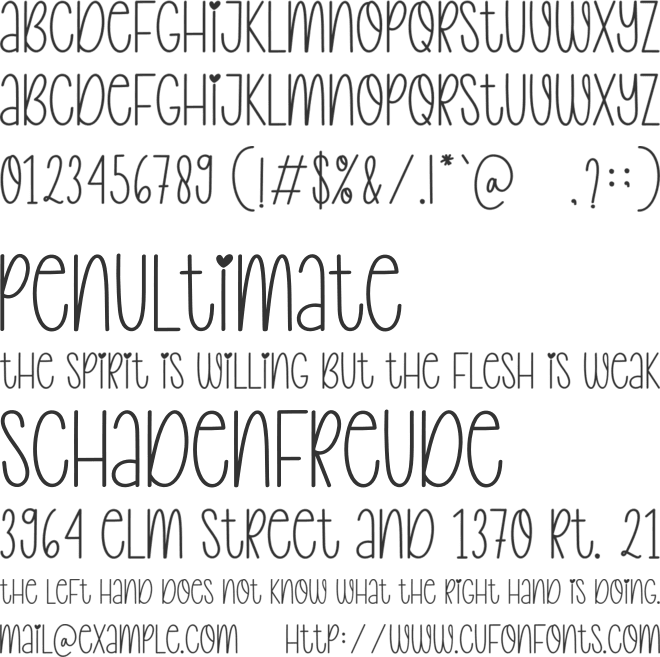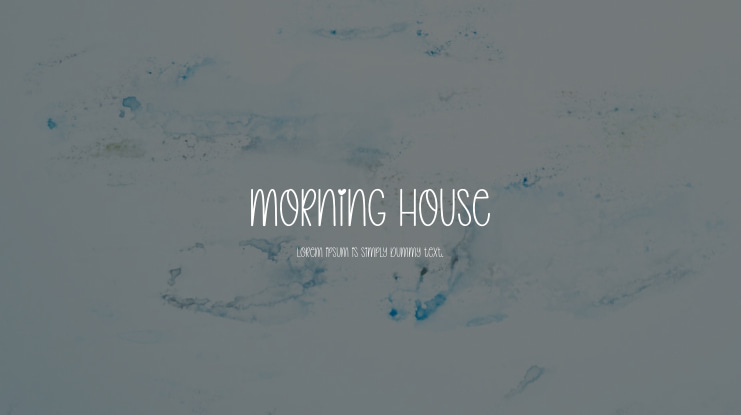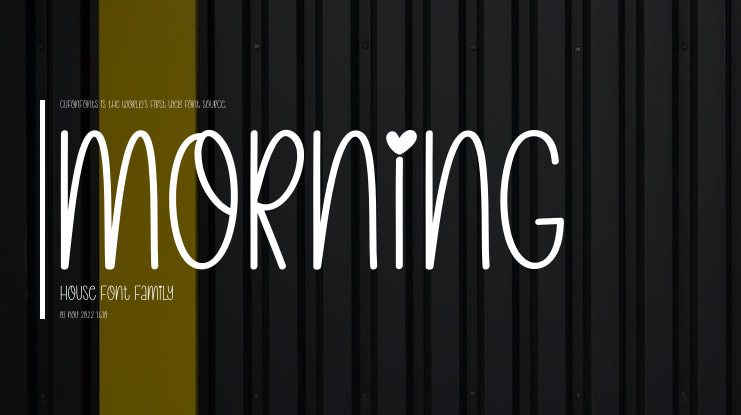
Our collection of stylish letters is perfect for a variety of uses such as wall displays, wedding invitations, logos for social media posts, advertisements, product packaging, designs, labels, photography, watermarks, invitations, stationery, and any project that requires elegant handwriting.